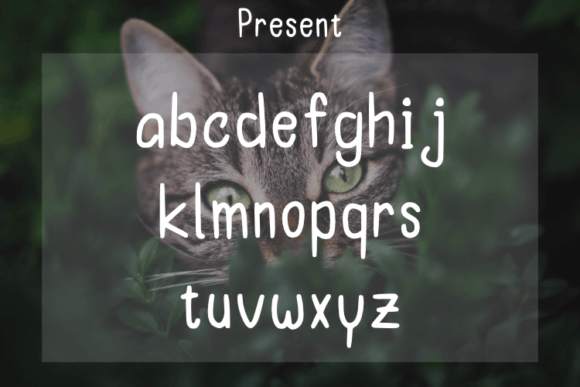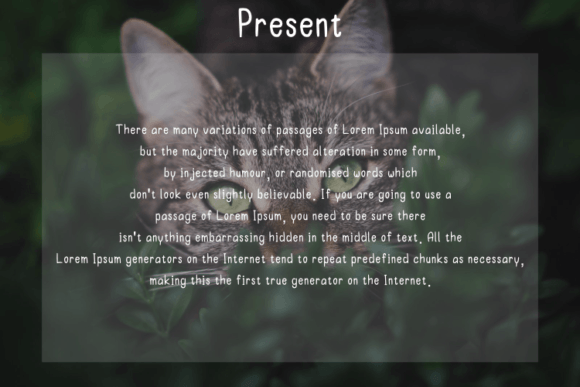
Thomas Font
About Thomas Font
Thomas is an exceptional script typeface renowned for its distinctive style and contemporary allure. Boasting a modern aesthetic, this typeface proves to be an ideal choice for a wide array of design applications. Its versatility shines through in the creation of elegant and luxurious logos, adding a touch of sophistication to brand identities. Moreover, Thomas is exceptionally well-suited for crafting captivating book or movie titles, infusing a sense of style and charm into literary and cinematic presentations.
In the realm of fashion branding, Thomas emerges as a premier choice, seamlessly integrating a chic modernity into the visual representation of clothing lines and accessories. The typeface effortlessly elevates the editorial world, enhancing the visual appeal of magazines with its stylish and eye-catching letterforms. Whether employed in the creation of fonts or quotes, Thomas consistently delivers a contemporary and refined aesthetic, enhancing the overall design.
The script’s dynamic nature allows it to adapt to various design needs, making Thomas a versatile asset for designers across industries. Its unique flair lends a distinctive touch to any project, ensuring that the final result exudes a sense of modern sophistication. Thomas doesn’t just serve as a typeface; it becomes a design element that enhances and defines the visual language of the project it graces.
In the ever-evolving landscape of design, Thomas stands as a testament to the seamless fusion of style and functionality. Its sleek and captivating appearance makes it a go-to choice for those seeking to make a statement in the realms of luxury, fashion, and editorial design. As a script typeface, Thomas not only meets but exceeds the expectations of those in search of a modern and stylish typographic solution, making it a valuable asset for a diverse array of creative endeavors.